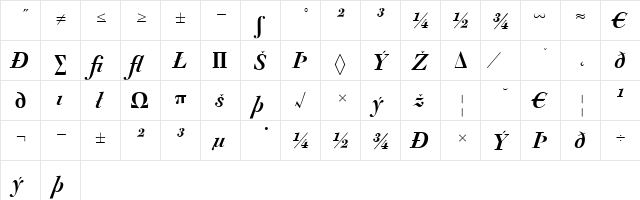
Acanthus Italic
Design Context for Acanthus Typeface
Acanthus is a composed and adaptable typeface that performs quietly and consistently across a wide range of design contexts. Its italic angle brings a sense of urgency and motion to the letterforms.
Pro Tip: Use Acanthus for emphasis, pull quotes, and subheadings where its slanted energy can add rhythm to the layout.